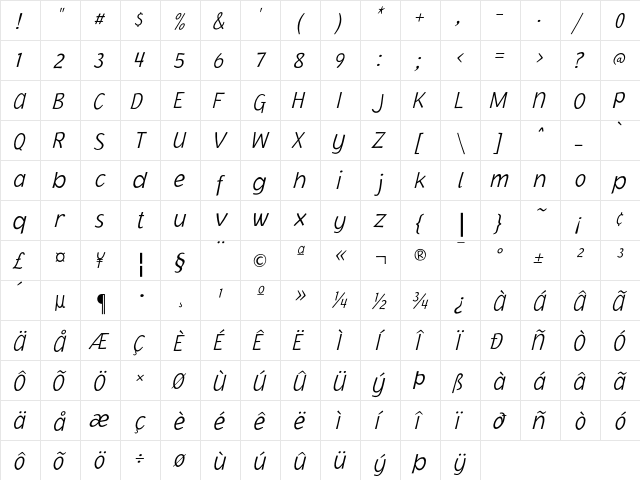
JacobyICG XLightItalic
Design Context for JacobyICG Typeface
JacobyICG offers clean, dependable letterforms without strong stylistic allegiance, making it a practical choice for designers who need flexibility. The slanted form adds forward momentum and visual energy. Its slender proportions lend an understated elegance to any composition.